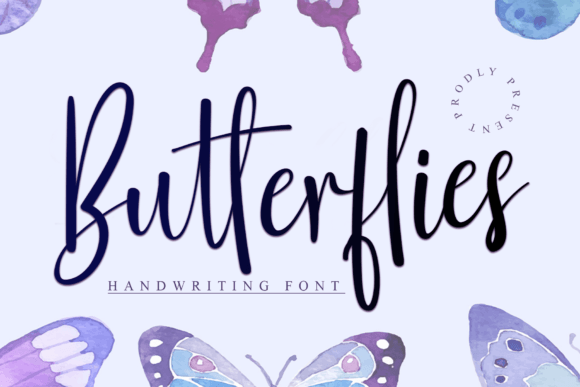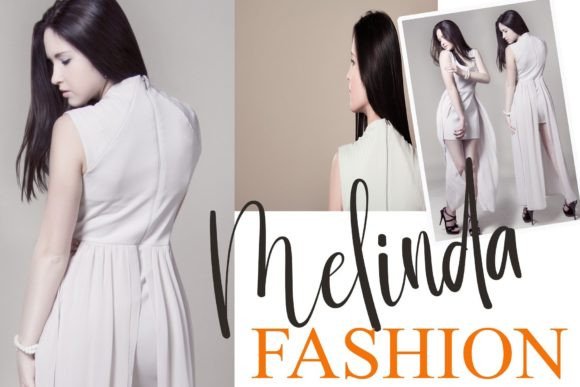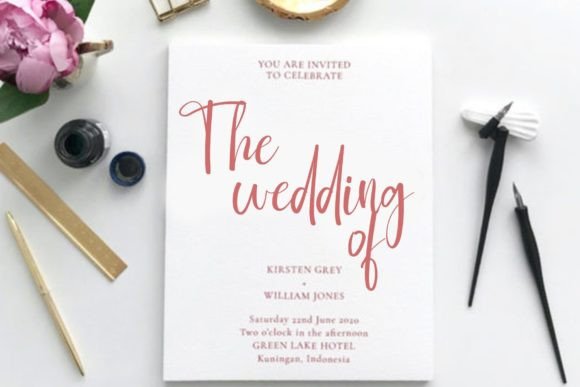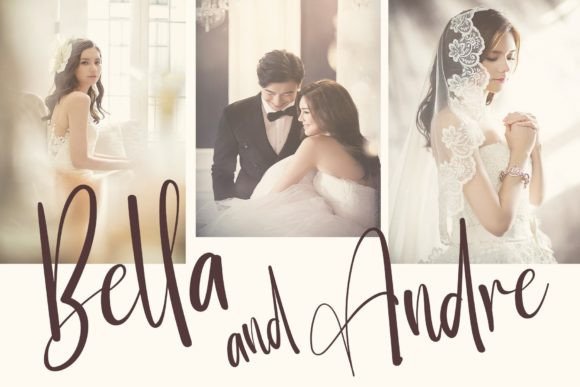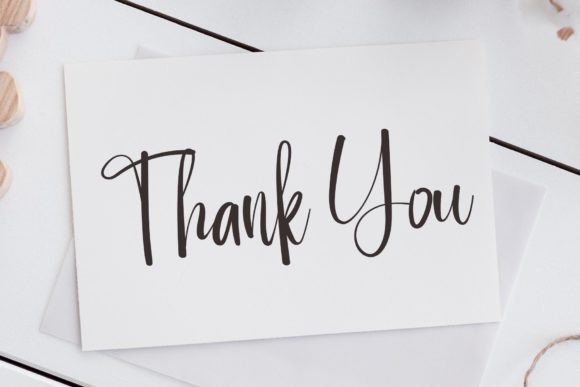
Butterflies Font
Butterflies is a fancy handwritten font. With bold contrast strokes and fun characters, it will enhance your creativity. It is perfect for logo design, social media, movie titles, book titles, and many more. Make stunning work with Butterflies font!